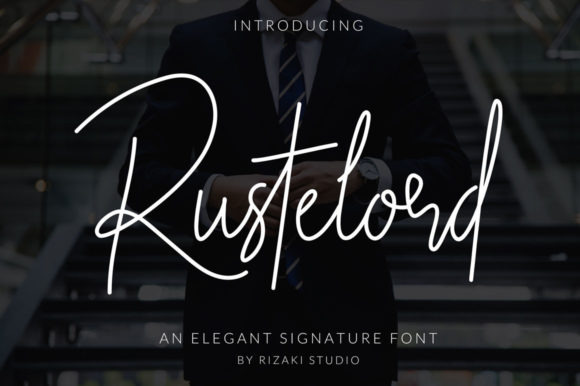
Unleash the allure with Rustelord Signature Font, a graceful symphony of impeccable script typography. This exquisite creation from Rizaki Studio beckons you to embrace a world of enchantment with its delicate strokes and elegant curves. Each character dances across the canvas like a ballerina, leaving behind a trail of understated charm and timeless beauty.
Step into a realm where sophistication meets creativity, where imagination knows no bounds. Let Rustelord Signature Font become your magic wand, transforming ordinary designs into captivating works of art. Whether you're crafting logos that exude timeless elegance, designing wedding invitations that evoke a sense of ethereal romance, or creating social media graphics that captivate your audience, Rustelord Signature Font is your perfect companion.
Immerse yourself in the versatility of Rustelord Signature Font, a font family that defies boundaries. Its clean, thin, and smooth lines lend themselves effortlessly to a multitude of creative endeavors. From personal branding that radiates sophistication to product packaging that whispers luxury, Rustelord Signature Font elevates your designs to new heights.
Experience the allure of individuality with Rustelord Signature Font, a font crafted for those who dare to be different. Its unique style sets you apart from the mundane, allowing you to leave a lasting impression on your audience. Whether you're creating marketing materials that demand attention or crafting personal projects that reflect your individuality, Rustelord Signature Font empowers you to make a statement.